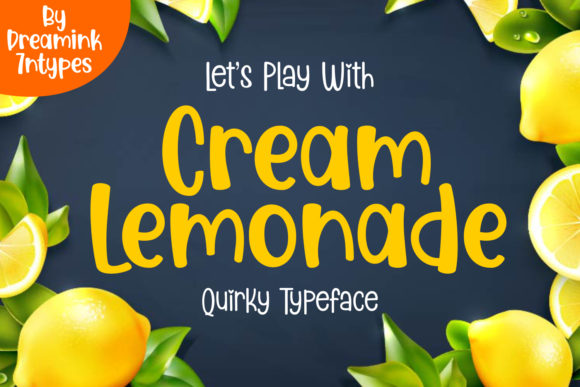
Feast your eyes on Cream Lemonade, the display font that drips with charm and exuberance! This playful typeface will instantly ignite your creativity, casting a radiant glow upon your design endeavors. It's the perfect companion for crafting extraordinary logos that radiate warmth and vibrancy.
Cream Lemonade's versatility extends to an array of projects, including eye-catching posters, enchanting invitations, and delightful social media posts. Let your imagination run wild as you weave captivating headlines that dance across the page, leaving an indelible mark on your audience's minds.
Its playful nature and captivating charm make it a perfect choice for personalized projects, turning ordinary gifts into extraordinary treasures. Create heartfelt cards that overflow with heartfelt sentiments, or design unique mugs that bring smiles to faces every morning.
Cream Lemonade is not just a font; it's an artistic expression that sparks joy and ignites creativity. Let its cheerful spirit infuse your designs with a touch of delight, making every project a celebration of life's sweetest moments.